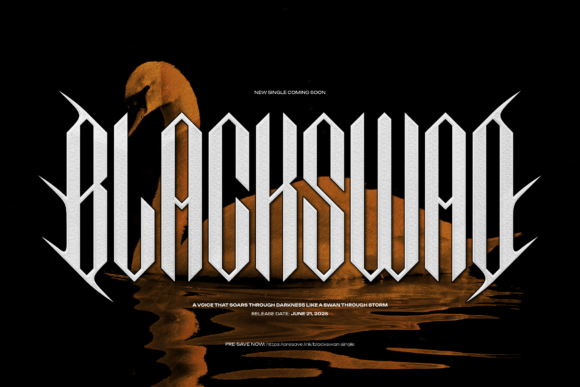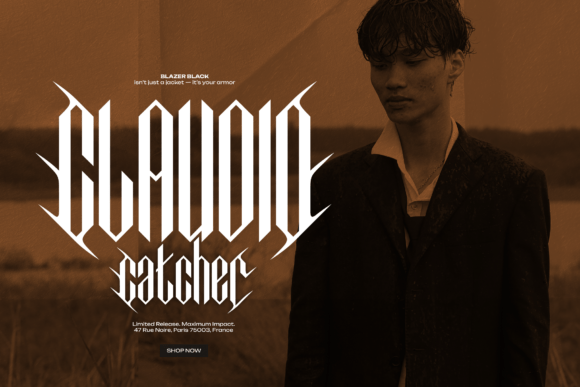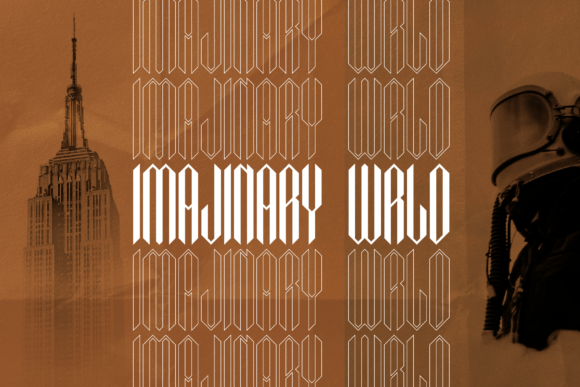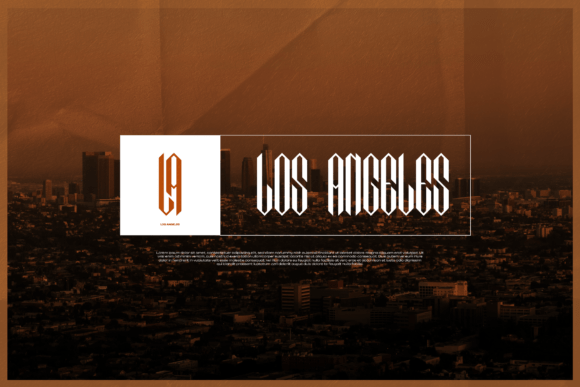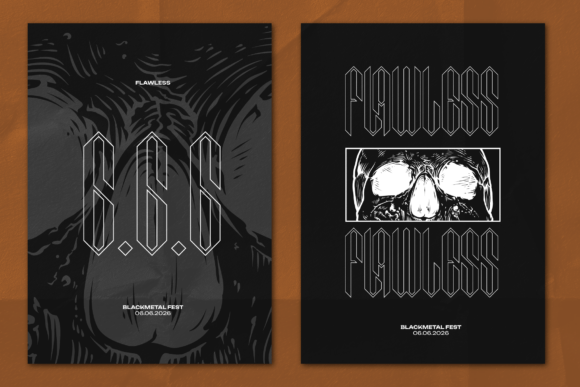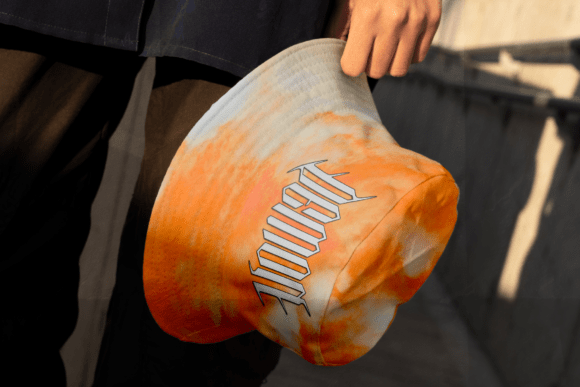
The Bold Statement Maker: Unleashing the Power of Gaudero Font
I’ll never forget the time I was working on a metal band’s logo project, and my client asked for a font that would make their album covers look like they belonged on a shelf next to Iron Maiden. I scoured the internet, tried out a dozen fonts, but nothing seemed to fit the bill. That was until I stumbled upon Gaudero Font. This bold, aggressive blackletter typeface has been a game-changer for my design projects, and I’m excited to share its awesomeness with you!
First Impressions: What I Love About Gaudero Font
Gaudero Font is not just any ordinary font. Here are a few things that make it stand out:
- ✨ Bold and Edgy: Gaudero’s sharp edges and towering characters make it perfect for logos, metal band covers, posters, and edgy branding.
- ✅ Highly Versatile: With over 370 glyphs, you can experiment with various styles and create unique designs.
The Not-So-Perfect: A Few Quirks and Limitations
While Gaudero Font is an amazing addition to any designer’s toolkit, there are a few things to keep in mind:
- 🤔 Legibility at Small Sizes: Due to its bold and ornate nature, Gaudero may not be the best choice for body text or small font sizes.
- ⚠️ Glyph Overload: With so many glyphs to choose from, it can be overwhelming to navigate and find the perfect character.
The Story Behind Gaudero Font
Gaudero Font was created with the goal of crafting a bold, attention-grabbing typeface that would make a statement. Inspired by traditional blackletter fonts and modern design trends, Gaudero Font is the result of careful craftsmanship and attention to detail.
| Is Gaudero Font suitable for body text? | Due to its bold and ornate nature, Gaudero Font is best used for headlines, titles, or emphasis text. |